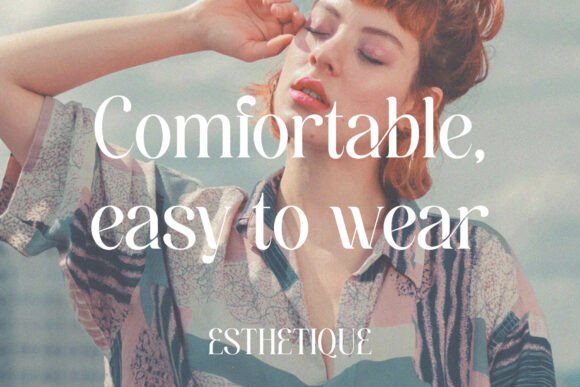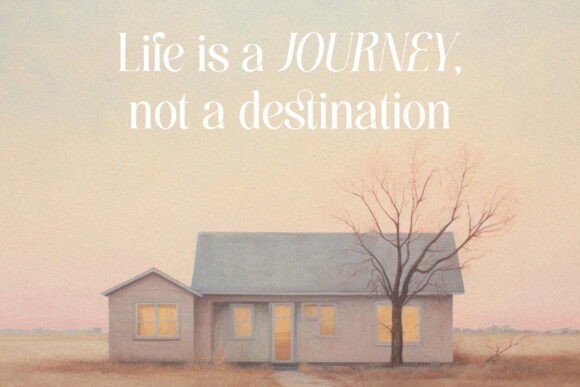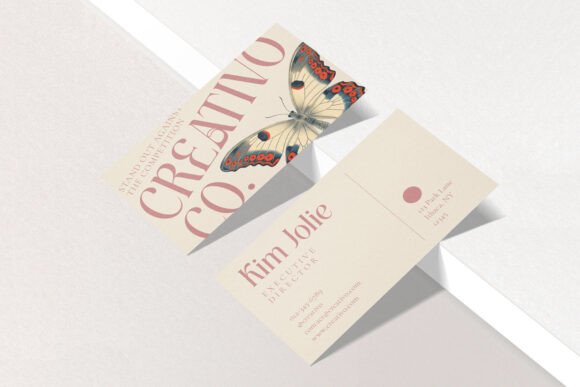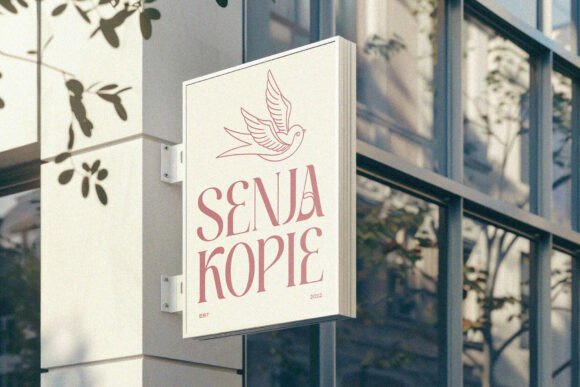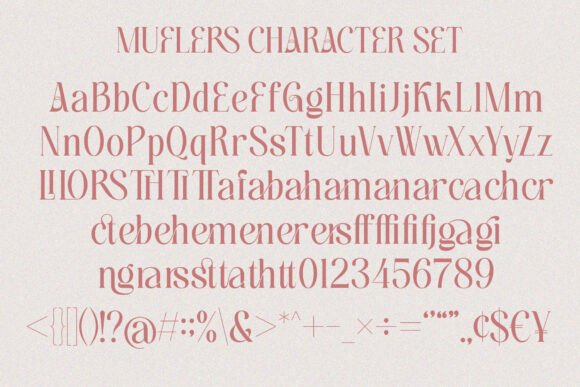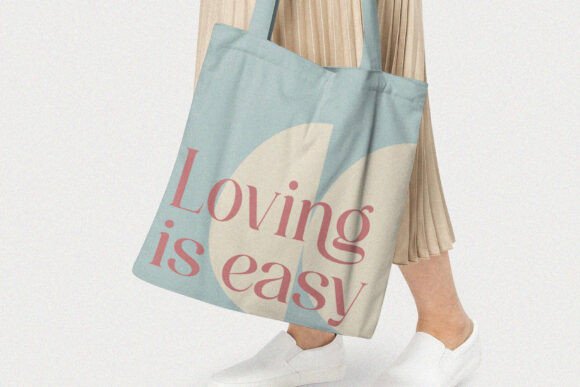
Introduction to Muflers Font
Remember the moment when you’re brainstorming ideas for your next creative project, and you need the perfect font to elevate your design? That’s when the search begins – scrolling through font libraries, testing different styles, and hoping to find the one that captures the essence of your vision. For designers, having a versatile and high-quality font at their disposal can make all the difference.
Enter the Muflers Font, a stylish and elegant serif ligature font that’s about to become your new go-to design resource. With its refined and sophisticated look, Muflers Font is perfect for a wide range of projects, from branding and logos to social media posts and product packaging. Whether you’re working on a free download or a premium design, this font is sure to add a touch of sophistication and professionalism to your work.
But what makes Muflers Font truly valuable for designers is its ability to adapt to any project, from labels and invitations to photography and stationery. And with its transparent background, you can easily customize it to fit your design needs. In this article, we’ll dive deeper into the world of Muflers Font and explore its many benefits and uses.
Key Features of Muflers Font
- Features a transparent background, making it versatile for design use
- Includes multiple font styles and weights for added design flexibility
- Perfect for use in graphic design, digital art, and other creative endeavors
Honest Review: Muflers Font
I recently came across the Muflers Font and I must say it’s a great addition to any design resource library. As a designer, I’m always on the lookout for high-quality fonts that can elevate my creative project to the next level.
What works well with Muflers Font is its clean and modern design. It’s perfect for any project that requires a sleek and sophisticated look. The font is available for free download, which is a major plus in my book. The transparent background is also a nice touch, making it easy to customize and integrate into any design.
- ✨ Clean and modern design
- ✨ Perfect for creative projects that require a sleek look
- ✨ Transparent background for easy customization
One limitation I’ve noticed is that the font may not be suitable for projects that require a more playful or whimsical tone. It’s a bit too serious for those types of projects.
Overall, I’m impressed with Muflers Font and I would definitely recommend it to designers who are looking for a high-quality font for their creative project.
Getting the Most Out of Muflers Font
For the best results, use Muflers Font on a high-quality design resource with a transparent background. This will allow the font to stand out and add a touch of sophistication to your creative project.
Muflers Font is perfect for a variety of design projects, including logo designs, business cards, and marketing materials. It’s also great for creating custom graphics and illustrations.